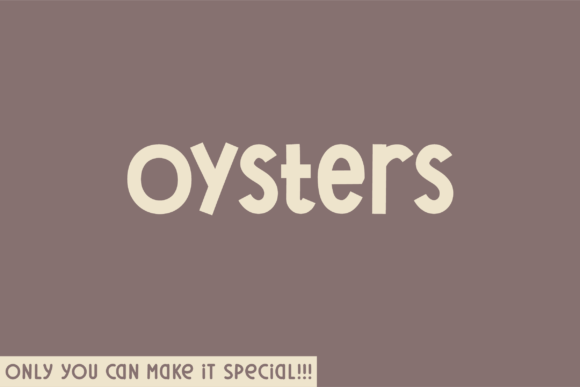
Embark on a typographic odyssey with Oysters Font, a captivating sans serif creation by Hanna Bie. This font is an emblem of elegance and charm, flowing seamlessly across any backdrop, be it digital or print.
Oysters Font draws inspiration from the organic contours of oyster shells, capturing their inherent grace and allure. Each letterform is meticulously crafted with a natural, unadorned style, devoid of any contrived embellishments. The result is a font that exudes a sense of effortless beauty and timeless appeal.
With its inherent versatility, Oysters Font effortlessly adapts to any creative endeavor. Whether you seek to craft captivating quotes, heartfelt notes, or stylish tees, this font is your steadfast companion. Its unassuming presence enhances any design, allowing your message to take center stage.
Experience the tactile allure of Oysters Font, meticulously designed to evoke emotions. Its smooth curves and delicate strokes caress the senses, leaving an enduring impression on the beholder. Allow your words to dance across the page or screen, imbued with an air of sophistication and grace.
Unleash your creativity with Oysters Font, the perfect choice for baby boy names. Its intrinsic charm and playful spirit lend a touch of whimsy to any moniker. Imagine the name of your little prince, rendered in the elegant strokes of Oysters Font, forever cherished as a timeless keepsake.